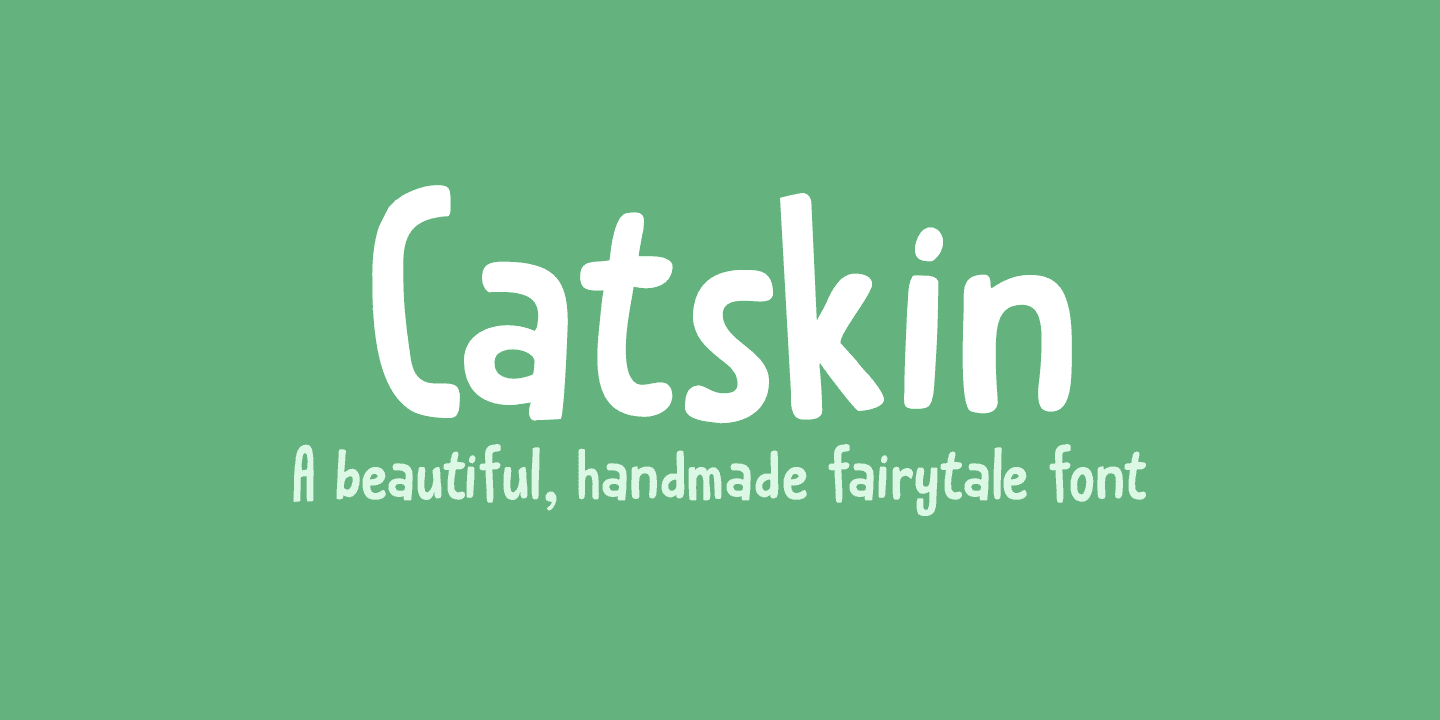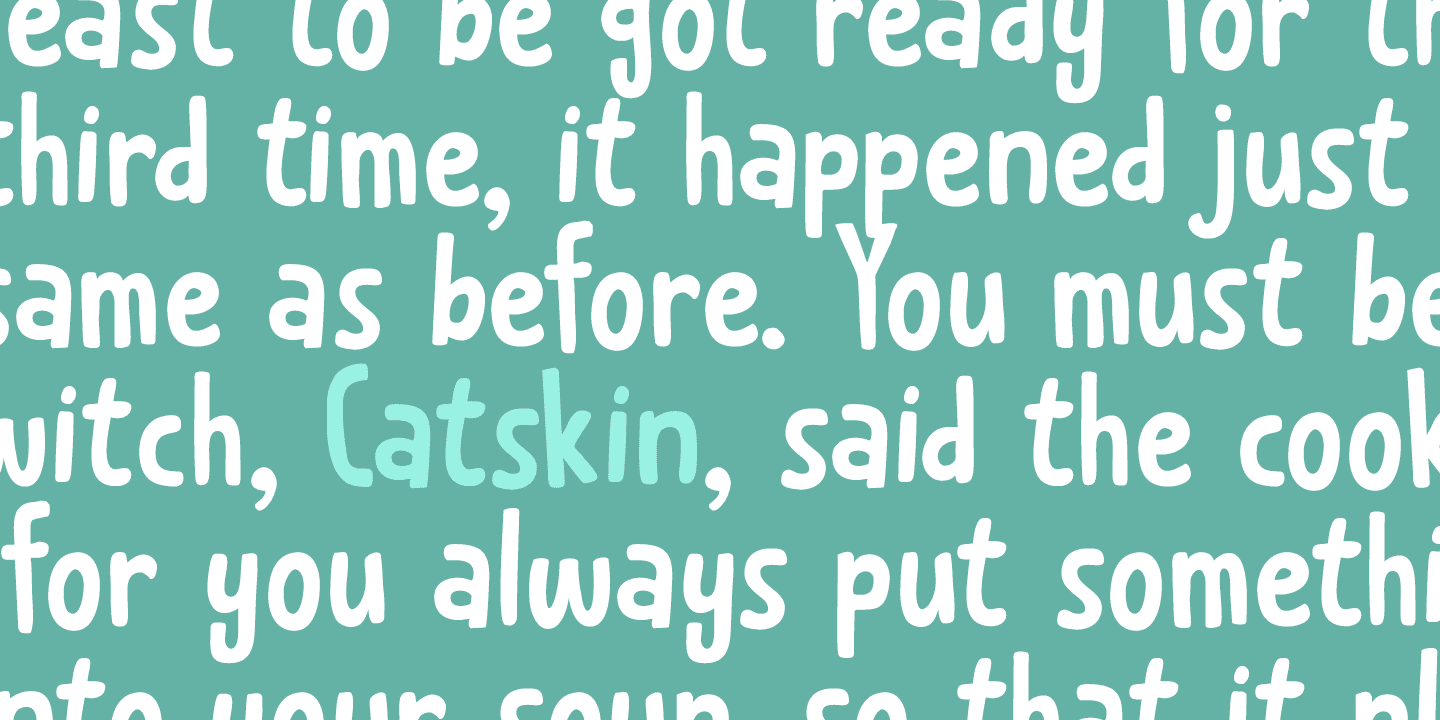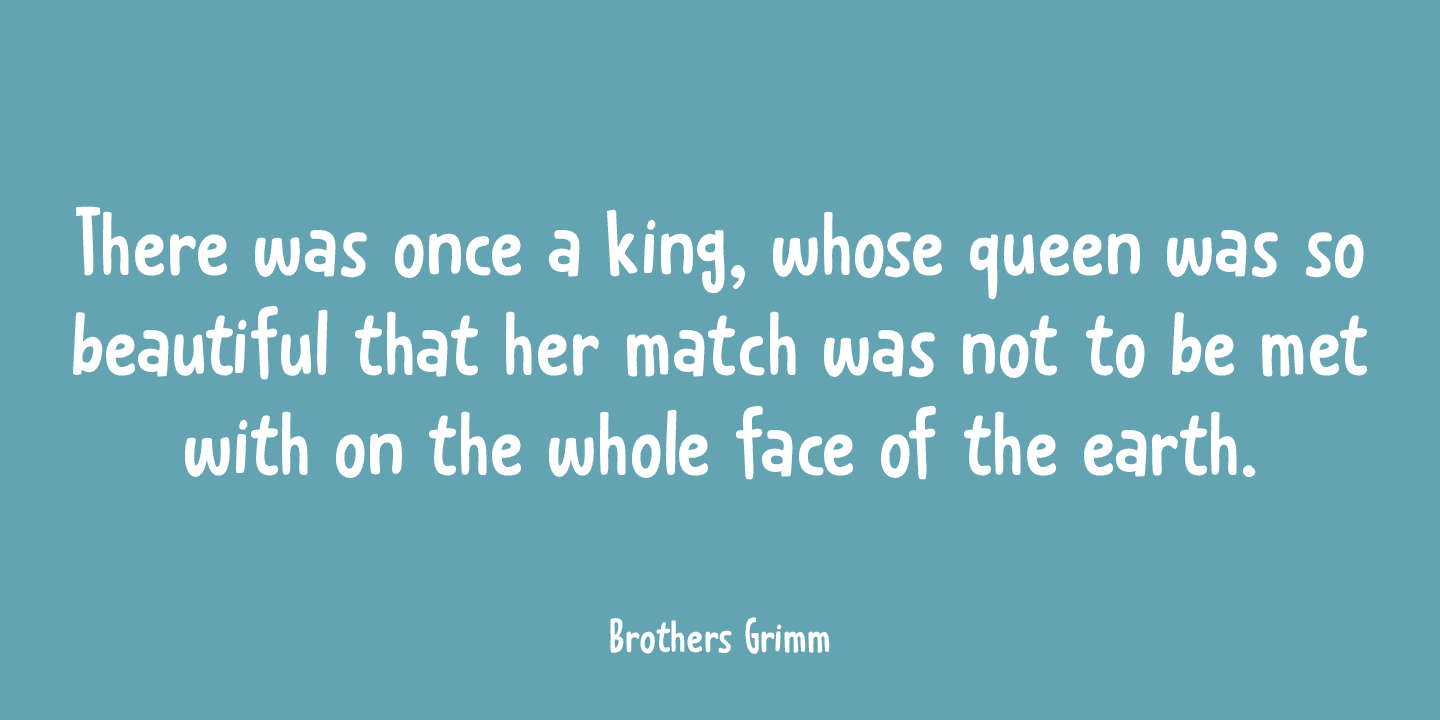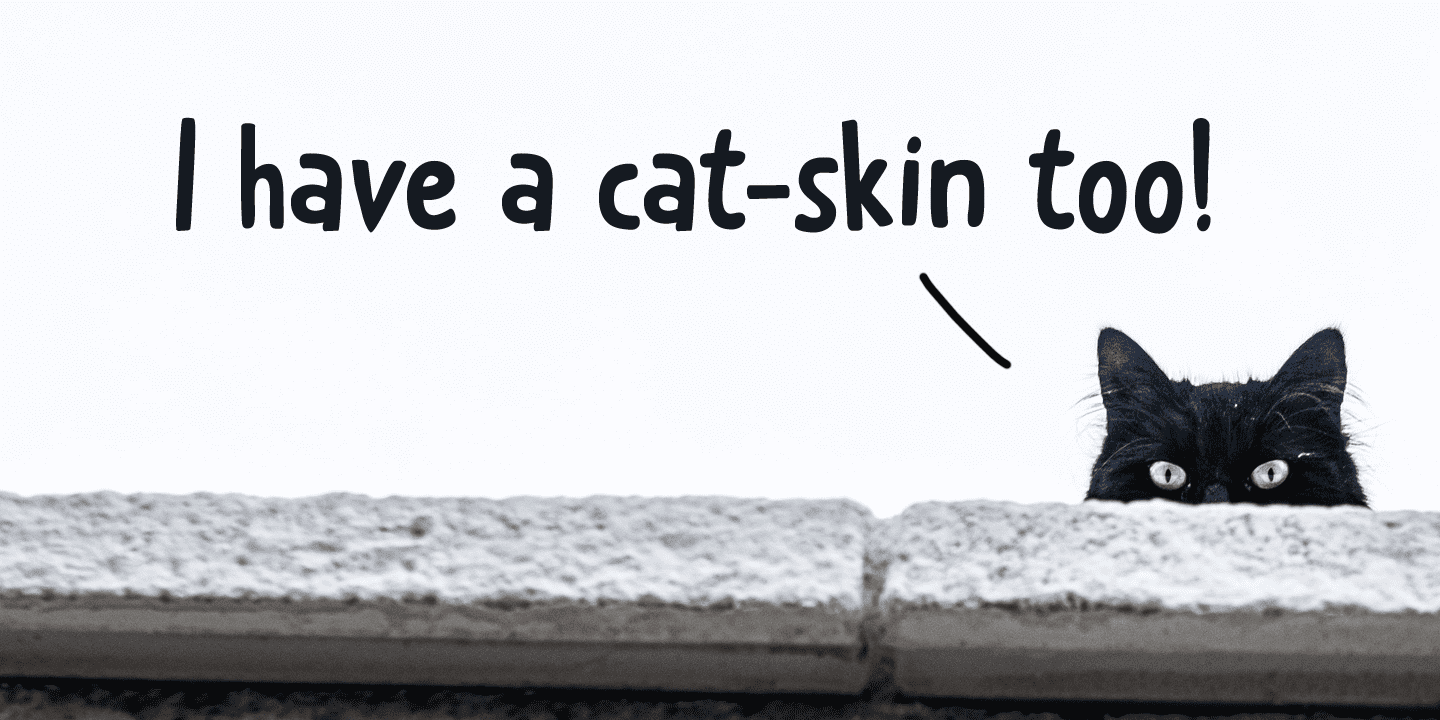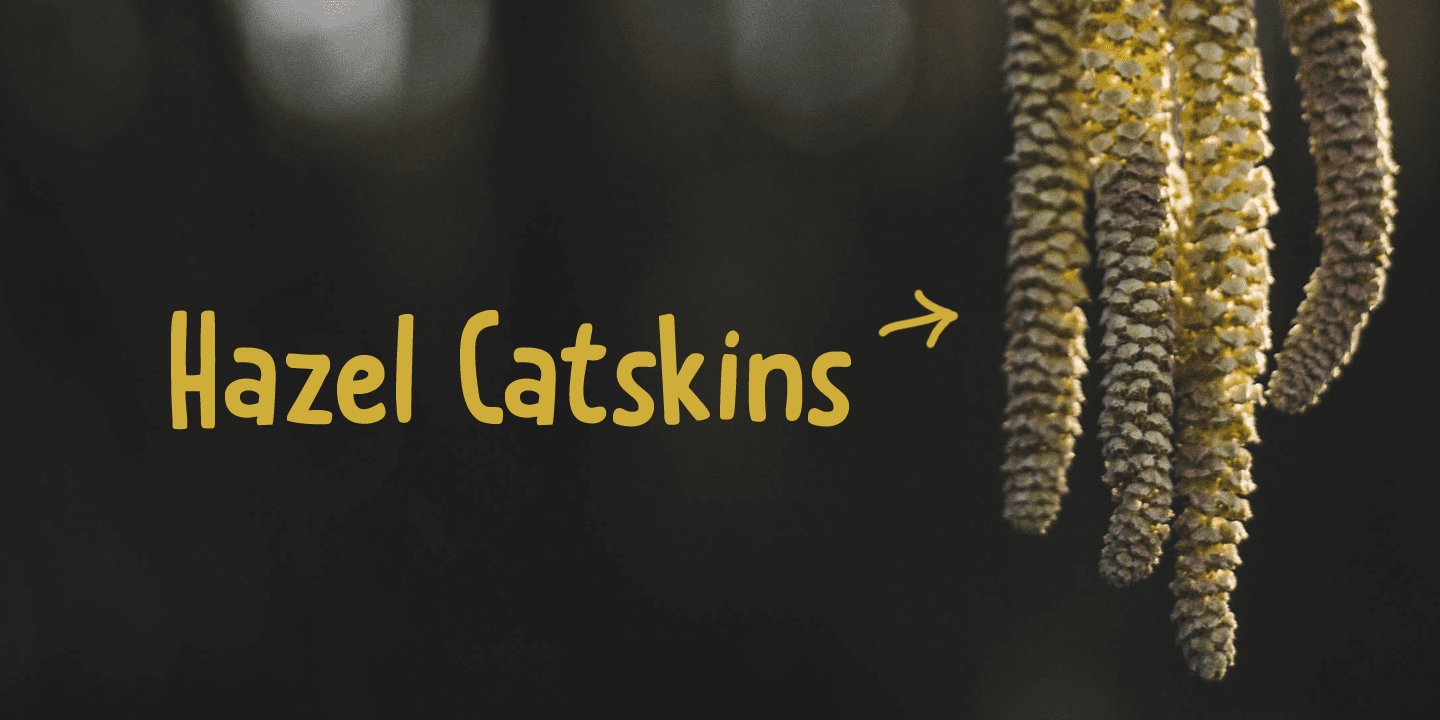
Catskin Family (2 fonts)
Catskin is also a nice, handmade font. I like making fairytale fonts, especially since I have three kids, who love books. And when I see one of my fonts on the cover, I can tell them: ‘daddy made this’. #prouddaddy